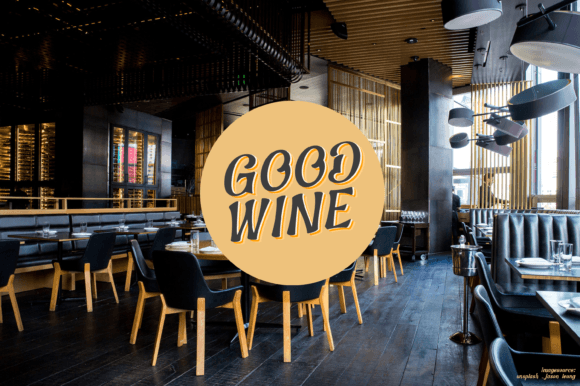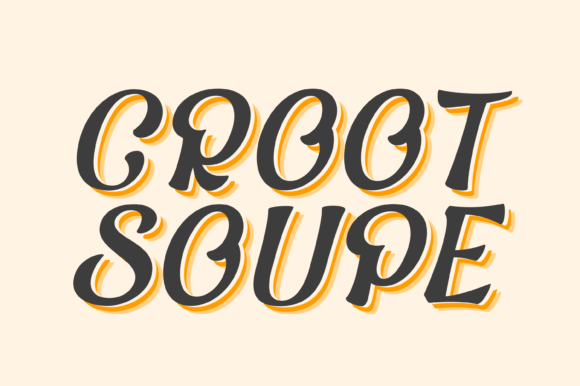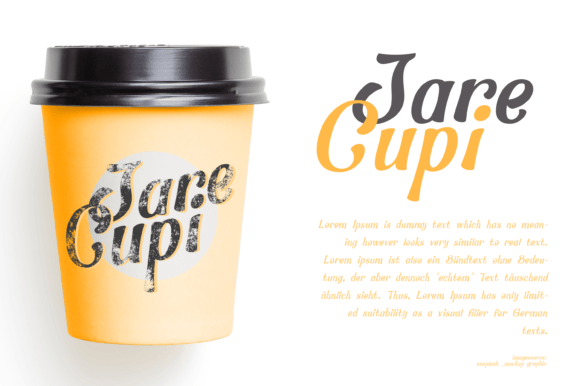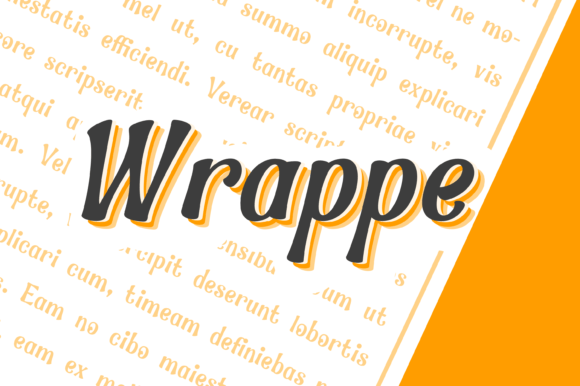
Covesea Font: The Funky Retro Display Font You Need
Are you tired of using the same old fonts in your designs? Look no further than Covesea, a retro display font that’s sure to bring a funky vibe to your projects. With its unique letterforms and bold curves, Covesea exudes a playful and energetic feel that’s perfect for designers and crafters looking to add a touch of personality to their work.
A Nod to the Past
Covesea is a font that pays homage to the past, with a design that’s reminiscent of classic retro fonts from the 70s and 80s. Its bold, curved lines and distinctive letterforms evoke a sense of nostalgia and playfulness, making it perfect for projects that require a fun and eye-catching font. Whether you’re designing a poster, album cover, or branding materials, Covesea is sure to add a touch of retro flair to your work.
Unique and Playful
What sets Covesea apart from other fonts is its unique and playful design. The font features bold, rounded curves and distinctive letterforms that give it a funky, energetic feel. The letters are carefully crafted to create a sense of movement and playfulness, making Covesea perfect for projects that require a font that’s a little bit quirky and offbeat.
Covesea is a font that’s perfect for designers and crafters who want to add a touch of personality to their work. Whether you’re creating posters, album covers, or branding materials, Covesea is a great choice for projects that require a font that’s a little bit bold and a lot of fun. The font is also great for crafters who want to add a personal touch to their handmade projects, such as scrapbooking, card making, and DIY crafts.
Key Features of Covesea Font
- Retro display font: Covesea is a retro-style display font that’s perfect for headlines, titles, and other design elements.
- Unique letterforms: The font features unique and distinctive letterforms that give it a funky, playful feel.
- Bold curves: Covesea’s bold, curved lines add a touch of energy and movement to your designs.
- Nostalgic feel: The font’s retro design evokes a sense of nostalgia and playfulness, making it perfect for projects that require a fun and eye-catching font.
How to Use Covesea Font
Covesea is a versatile font that can be used in a variety of design projects. Here are a few ideas to get you started:
- Posters and flyers: Use Covesea to create eye-catching posters and flyers that grab attention.
- Album covers: Add a touch of retro flair to your album covers with Covesea’s funky, playful design.
- Branding materials: Use Covesea to create unique and memorable branding materials, such as logos, business cards, and letterheads.
- Handmade crafts: Add a personal touch to your handmade crafts, such as scrapbooking, card making, and DIY projects, with Covesea’s playful design.
Covesea is a retro display font that’s sure to bring a funky vibe to your designs. With its unique letterforms, bold curves, and nostalgic feel, Covesea is perfect for designers and crafters who want to add a touch of personality to their work. Whether you’re creating posters, album covers, or branding materials, Covesea is a great choice for projects that require a font that’s a little bit bold and a lot of fun. So why wait? Get ready to groove with Covesea and take your designs to the next level!